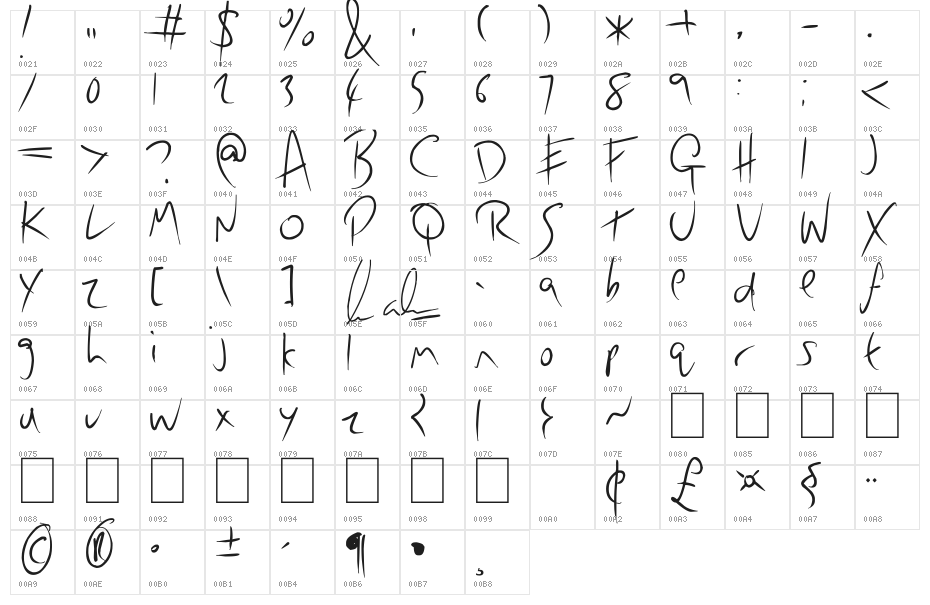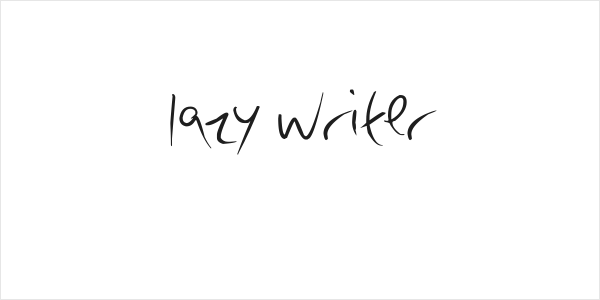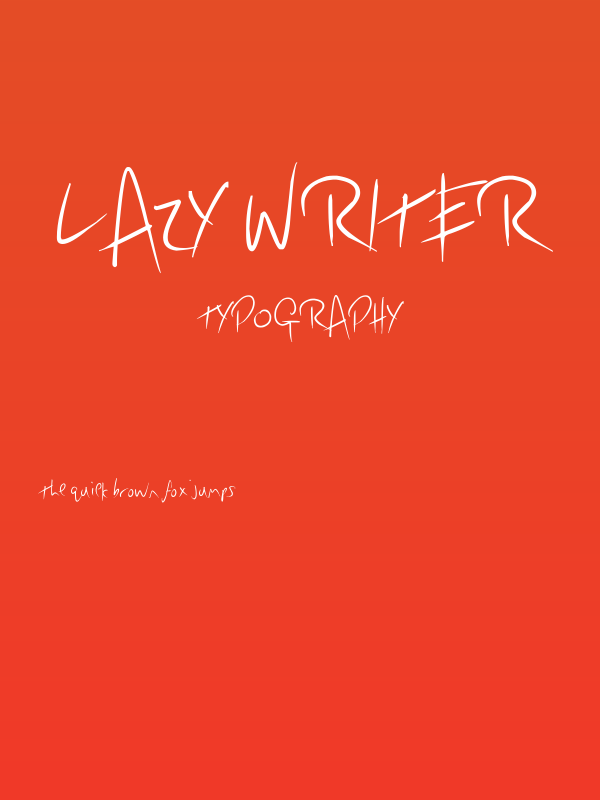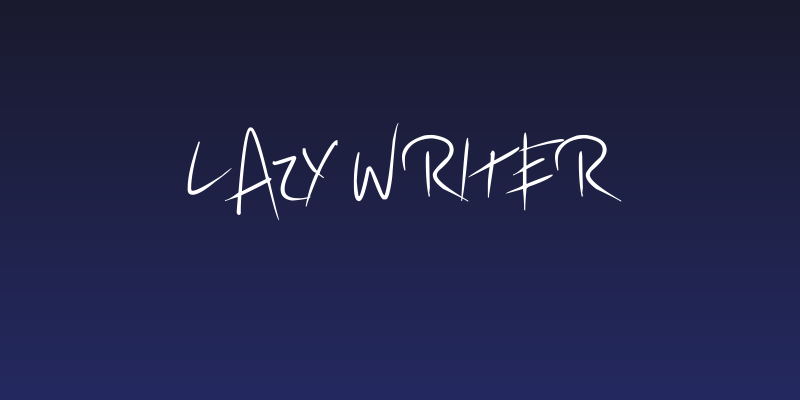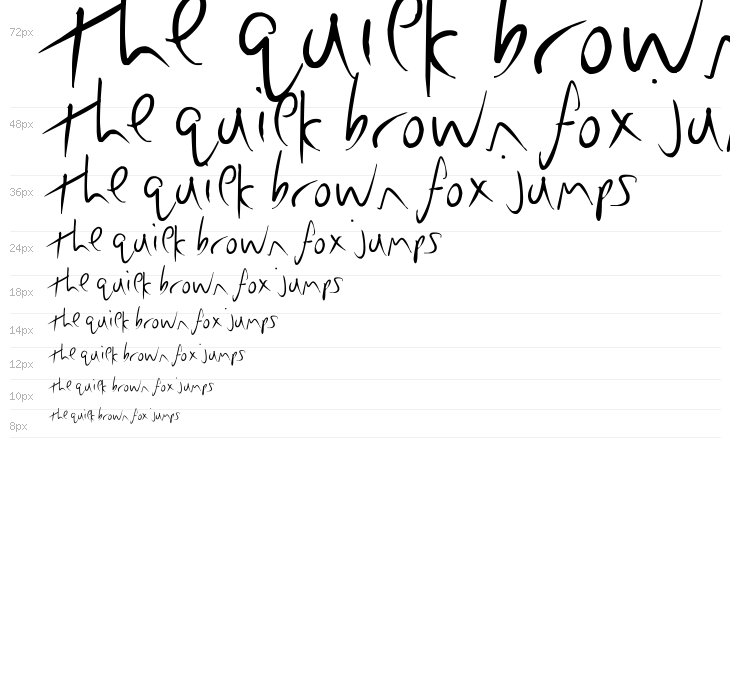
lazy writer Font
lazy writer Description
This font features a casual, handwritten style with a playful and spontaneous appearance. The letters are irregular and dynamic, giving a sense of movement and energy. The strokes are varied in thickness, adding to the informal and relaxed feel. The uppercase and lowercase letters are distinct, with some characters having exaggerated loops and curves. Numbers and special characters maintain the same lively style, making the font versatile for creative projects. The overall impression is one of creativity and expressiveness, perfect for adding a personal touch to any design.
Overall StyleCasual, Expressive
Use CaseLogos, Headlines, Creative projects
Proposed ProjectsIdeal for greeting cards, personal branding, creative posters, and informal invitations.